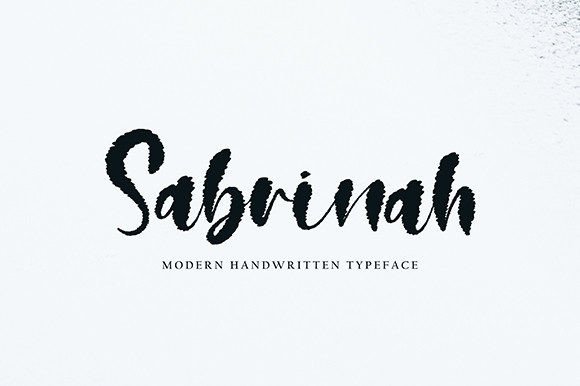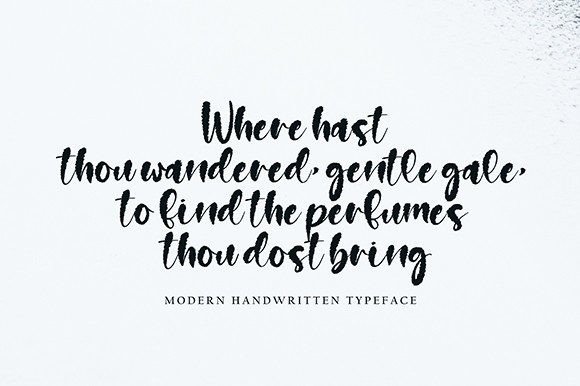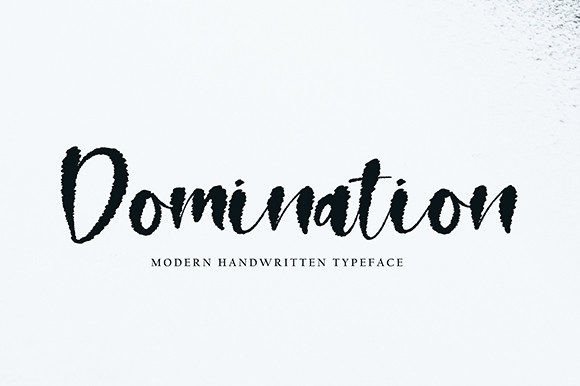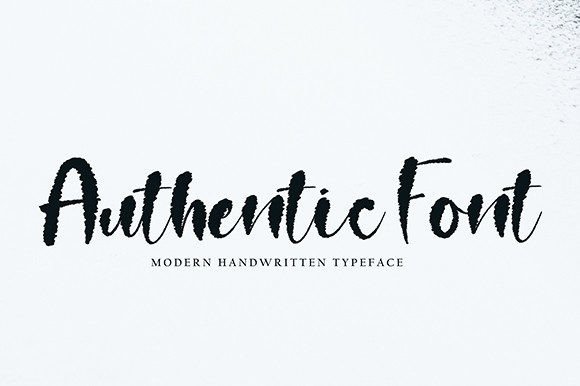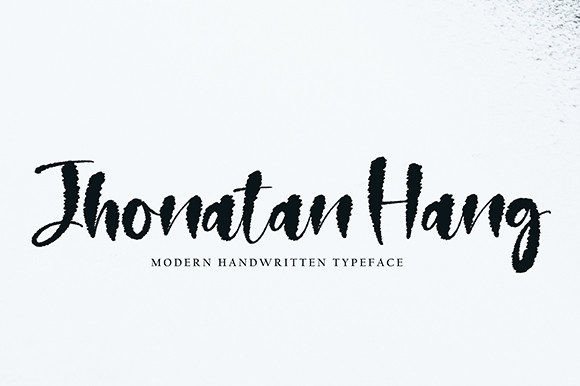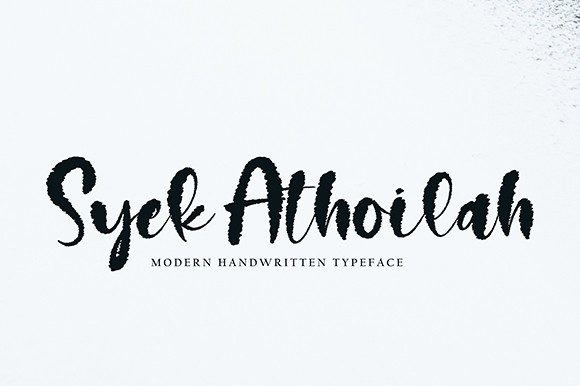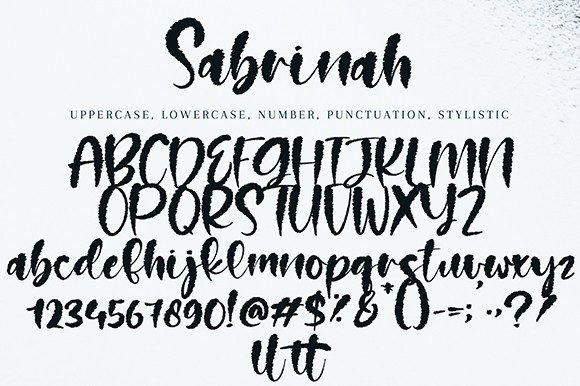
Sabrinah Font
About Sabrinah Font
A Bold and Unique Script Font
The Sabrinah Font is a bold script typeface that stands out with its unique style. Designed to make a statement, this font offers a perfect balance between boldness and elegance, making it ideal for a variety of creative projects. Whether you’re designing quotes, logos, blog headers, posters, or invitations, the Sabrinah Font adds a touch of personality and flair to your work.
Ideal for Logos and Branding
If you’re working on logos or branding materials, the Sabrinah Font is an excellent choice. Its bold script style gives your brand a strong, memorable identity that stands out. Whether you’re designing for businesses, personal brands, or creative ventures, this font offers a unique, professional touch that captures attention and creates a lasting impression.
Perfect for Quotes and Typography Projects
The Sabrinah Font is perfect for any typography-based project, including quotes, headlines, and slogans. Its bold strokes and distinct script ensure that your text will catch the eye and make a statement. Whether you’re designing motivational quotes for social media, website headings, or posters, this font adds a personal and artistic touch to your typography.
Great for Invitations and Stationery
The Sabrinah Font also works wonderfully for invitations and stationery. Whether you’re creating wedding invitations, event cards, or thank you notes, this font adds a bold yet elegant touch to your designs. Its unique script style ensures that your stationery stands out, making it perfect for both formal and informal events.
Versatile for Multiple Design Projects
One of the standout features of the Sabrinah Font is its versatility. It works beautifully for a wide range of creative applications, from product packaging and advertisements to business cards and flyers. Whether you’re designing promotional materials, logos, or social media graphics, this font adds an original, bold flair to your work.
Bold, Stylish, and Easy to Use
Despite its bold design, the Sabrinah Font remains easy to use and legible. Whether you’re working with large headlines or smaller text blocks, this font maintains clarity while adding impact to your designs. Its simple yet striking appearance makes it a flexible font that works across various design needs, from websites to print media.
Add Boldness and Uniqueness to Your Designs
Whether you’re working on logos, branding, invitations, or quotes, the Sabrinah Font is the perfect choice to add boldness and uniqueness to your designs. This script font brings both creativity and elegance to any project, ensuring your work stands out and leaves a lasting impression. Elevate your creative projects with the Sabrinah Font and make your designs truly special.